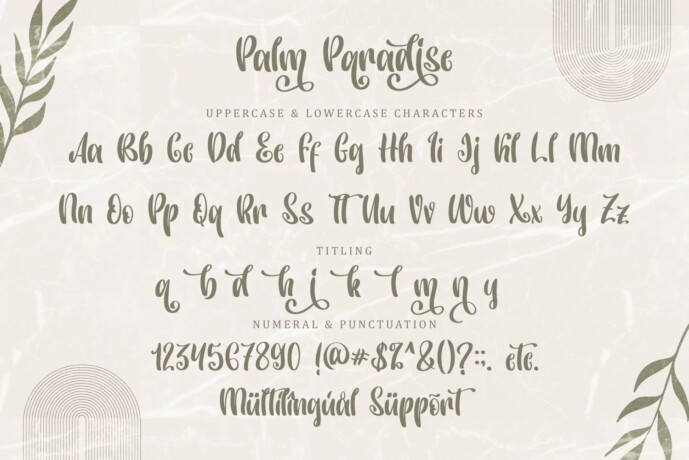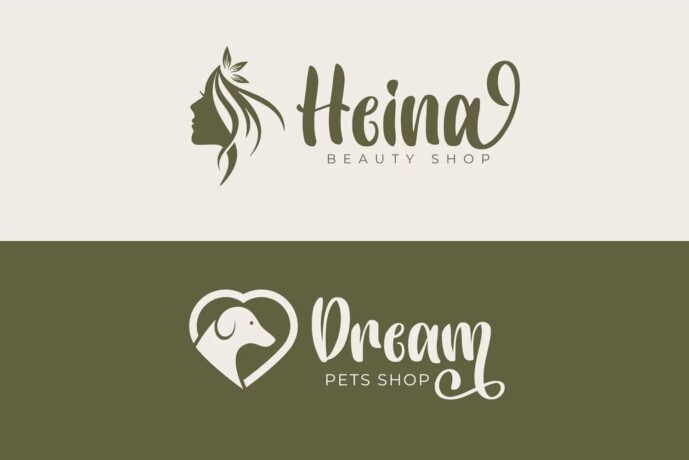
Palm Paradise Font
Designer: Sakha Design
Palm Paradise Font. Its graceful strokes and natural curves make it perfect for projects like greeting cards, wedding invites, or branding. This handwritten font adds a unique, authentic feel to any design, making your creations truly memorable.